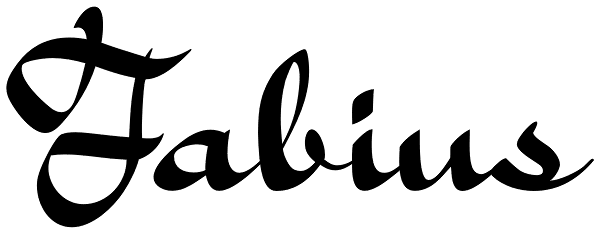
Fabius
A flat pen script font face with a fairly elegant look to it. The design of this script was intended to be used anywhere a well legible script is called for. A heavy stout script is the perfect display face which has a 30s and 40s flair that will...